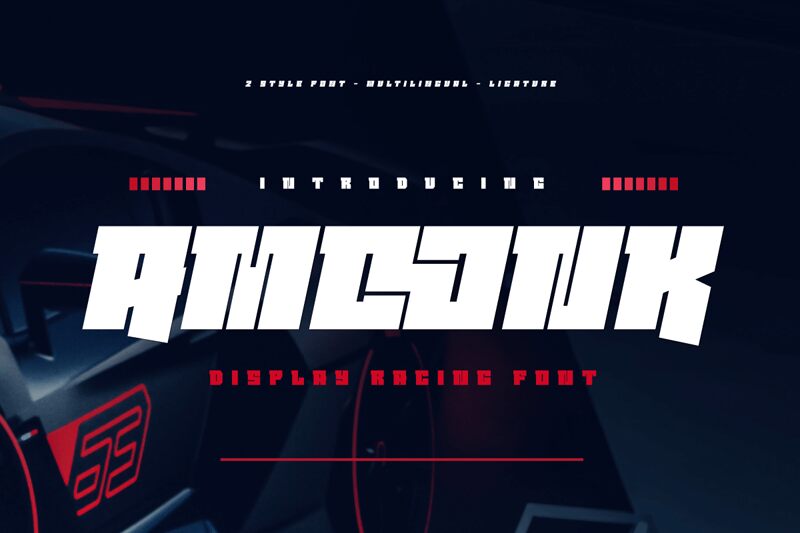
AMOONK Regular
Amoonk font, designed by productype.com, is a free techno display font with an expanded bold style. Its geometric structure gives off a minimalist modern look which combines well with its imposing nature for an overall strong visual effect. Additionally, the precise structured shape makes the result symmetrical and carefully ordered.
Use this premium quality typeface to create futuristic poster designs, book covers for sci-fi publications, magazine headlines, promotional projects and branding purposes. Enjoy experimenting and having fun; after all you can use Amoonk freely even in your commercial works.